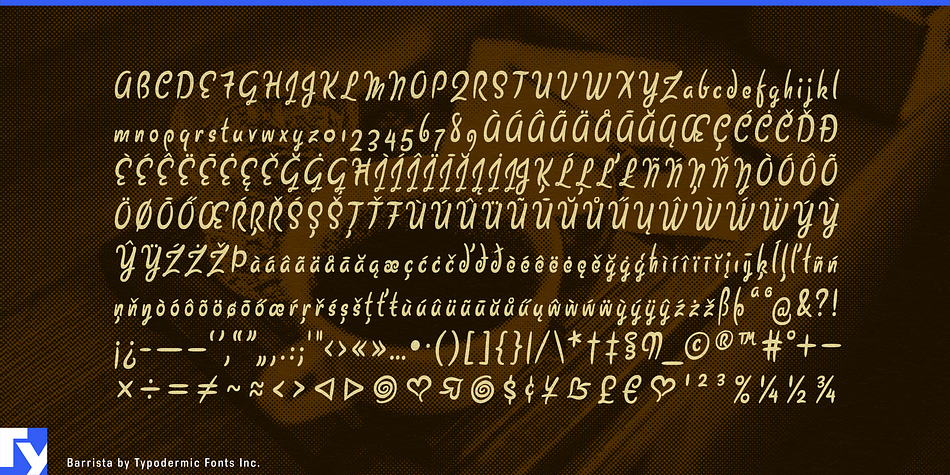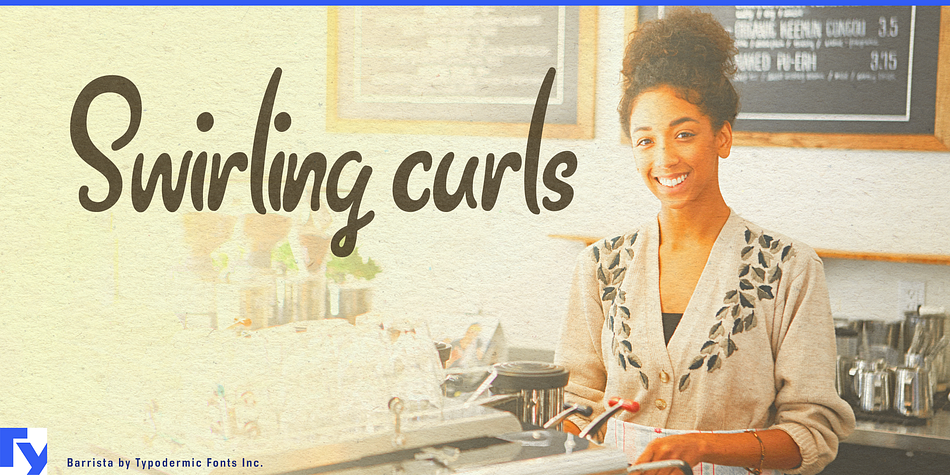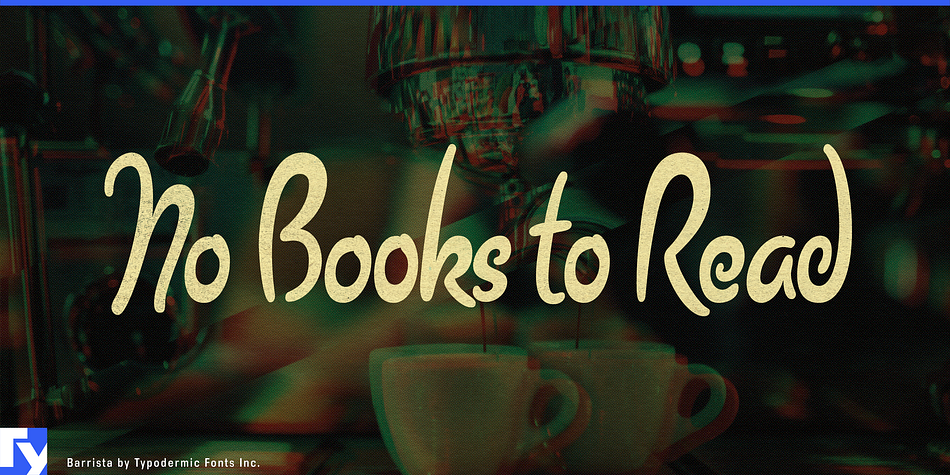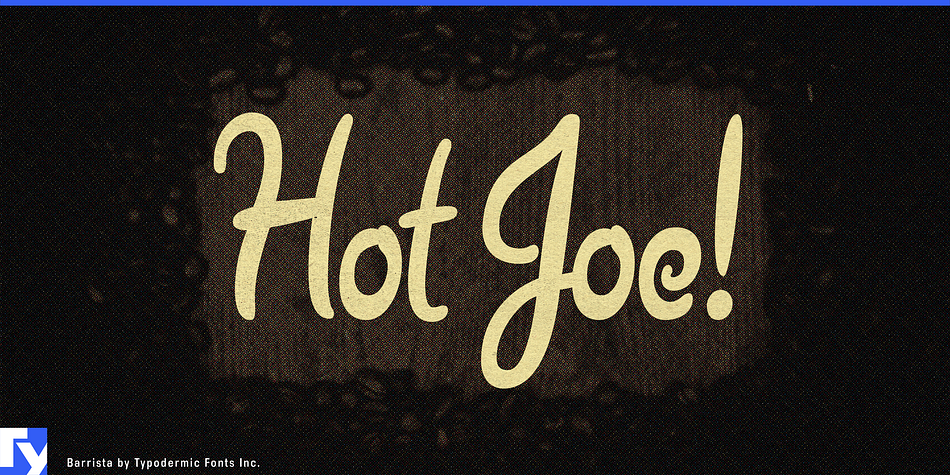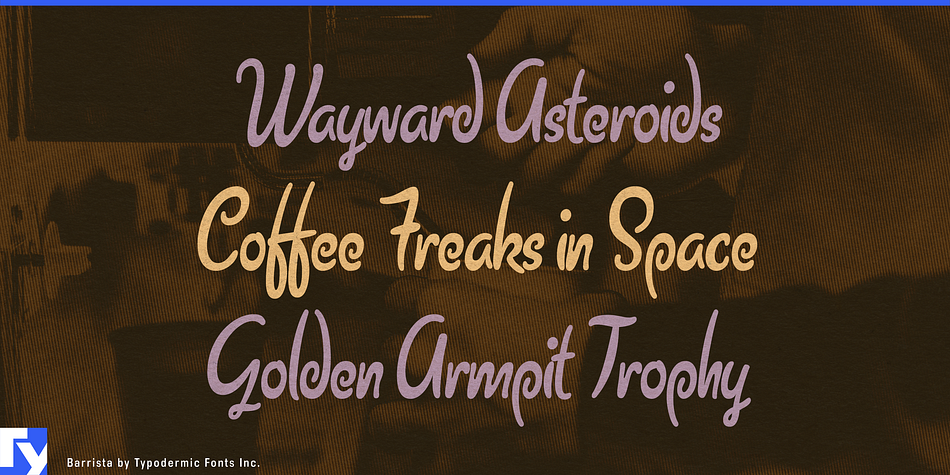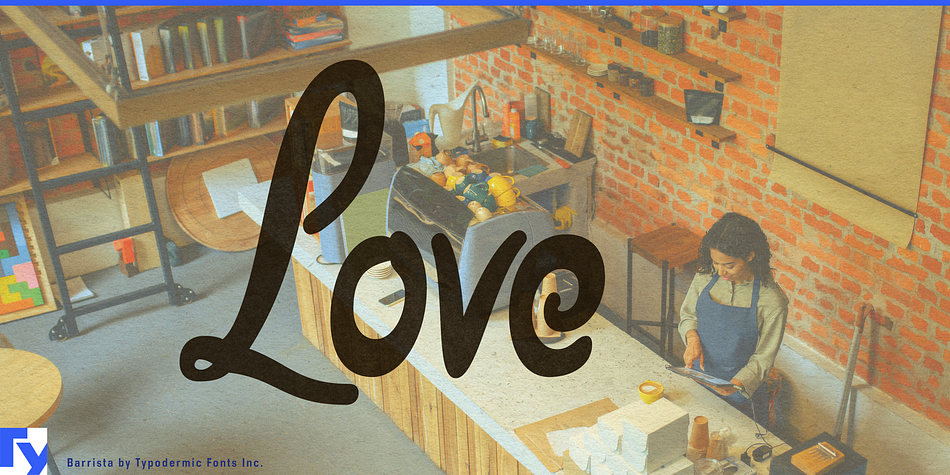
Barrista is a brush script font published by Typodermic Fonts Inc.
Barrista is a casual, curly script, reminiscent of the swirling curls of steam from a hot cup of Joe.